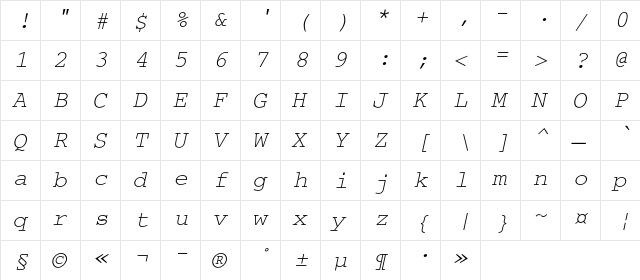
CourierC Italic Font Preview
CourierC Italic
Design Context for CourierC Typeface
CourierC brings the precise, column-aligned rhythm of monospaced typography to designs that value technical clarity and systematic order. The slanted form adds forward momentum and visual energy.
Well-suited to data-driven dashboards, coding tutorials, and any design that wants to reference the world of programming.
Pro Tip: Use CourierC with slightly increased line-height for extended reading — fixed-width spacing can feel dense in longer passages without extra breathing room.